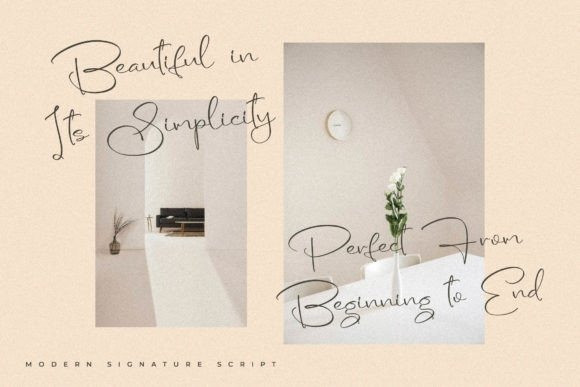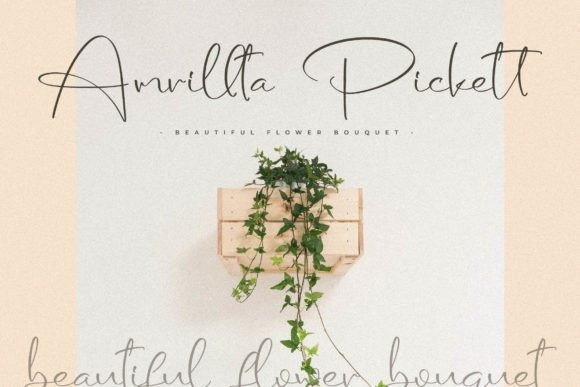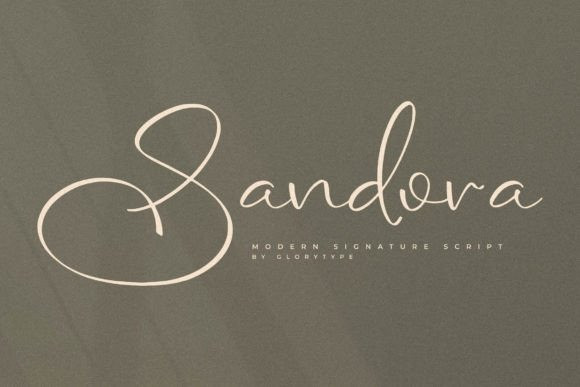
Sandora Font
Sandora – Modern Signature Script is suitable for any projects such as logos, branding projects, homeware designs, product packaging, mugs, quotes, posters, shopping bags, t-shirts, book covers, name cards, invitation cards, greeting cards, labels, photography, watermark, special events, and all your other lovely projects that need a beautiful script taste.